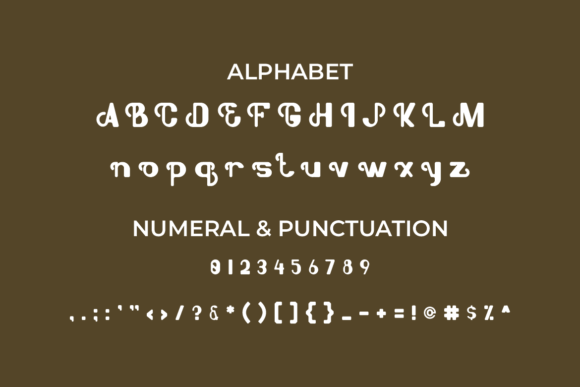
Introduction to Masse Font
Have you ever been in the midst of a creative project, staring at a blank page, searching for the perfect font to bring your vision to life? That’s exactly where I found myself, and then I stumbled upon the Masse Font – a game-changer for designers. This unique display font features quirky characters that add a touch of personality to any design, making it a valuable resource for creatives.
With its high-quality design and free download option, the Masse Font is an excellent addition to any design arsenal. Whether you’re working on a project with a transparent background or need a bold statement, this font is sure to deliver. Its versatility and quirky charm make it an ideal choice for designers looking to elevate their creative ideas to the next level.
Key Features of Masse Font
- High-quality, professional design suitable for various creative projects.
- Transparent background, allowing for seamless integration with different design elements.
- Unique, stylish design elements that can add a touch of sophistication to any project.
Honest Review: Masse Font
I recently came across the Masse Font and was excited to give it a try. As a designer, I’m always on the lookout for high-quality design resources that can elevate my creative projects.
Here’s what I like about Masse Font: ✨
- It has a sleek and modern aesthetic that’s perfect for a wide range of applications.
- The font is highly customizable, making it easy to adapt to different design needs.
- The transparent background feature is a game-changer for designers who want to add a touch of sophistication to their work.
However, I did encounter a few limitations: ⚠️
- The font can be a bit difficult to read at small font sizes.
- There are limited language support options available.
Overall, I’m impressed with the Masse Font and would definitely recommend it to fellow designers. The free download option is a major plus, and the high-quality design makes it a valuable resource for any creative project.
Masse Font
Introduction to Masse Font
Masse Font is a high-quality design resource perfect for creative projects. This versatile font is available for free download and features a transparent background, making it easy to incorporate into various designs.
Tips for Getting the Most Out of Masse Font
For optimal results, use Masse Font in conjunction with other design elements, such as graphics and images, to create a visually appealing design. Experiment with different font sizes and styles to achieve the desired effect.
Common Use Cases for Masse Font
Masse Font is ideal for use in presentations, documents, and social media graphics. Its transparent background makes it easy to layer over images and graphics, creating a unique and eye-catching design.
Yes, Masse Font has a transparent background, making it perfect for designs that require a clean and minimalist look. This feature is especially useful when working on designs with complex backgrounds or when you need to layer multiple elements.
Q: Is Masse Font suitable for use on digital screens?
Yes, Masse Font is designed to be legible on digital screens. It’s a high-quality design resource that’s optimized for use on monitors, tablets, and mobile devices. Whether you’re working on a web design project or creating a presentation, Masse Font is a great choice.